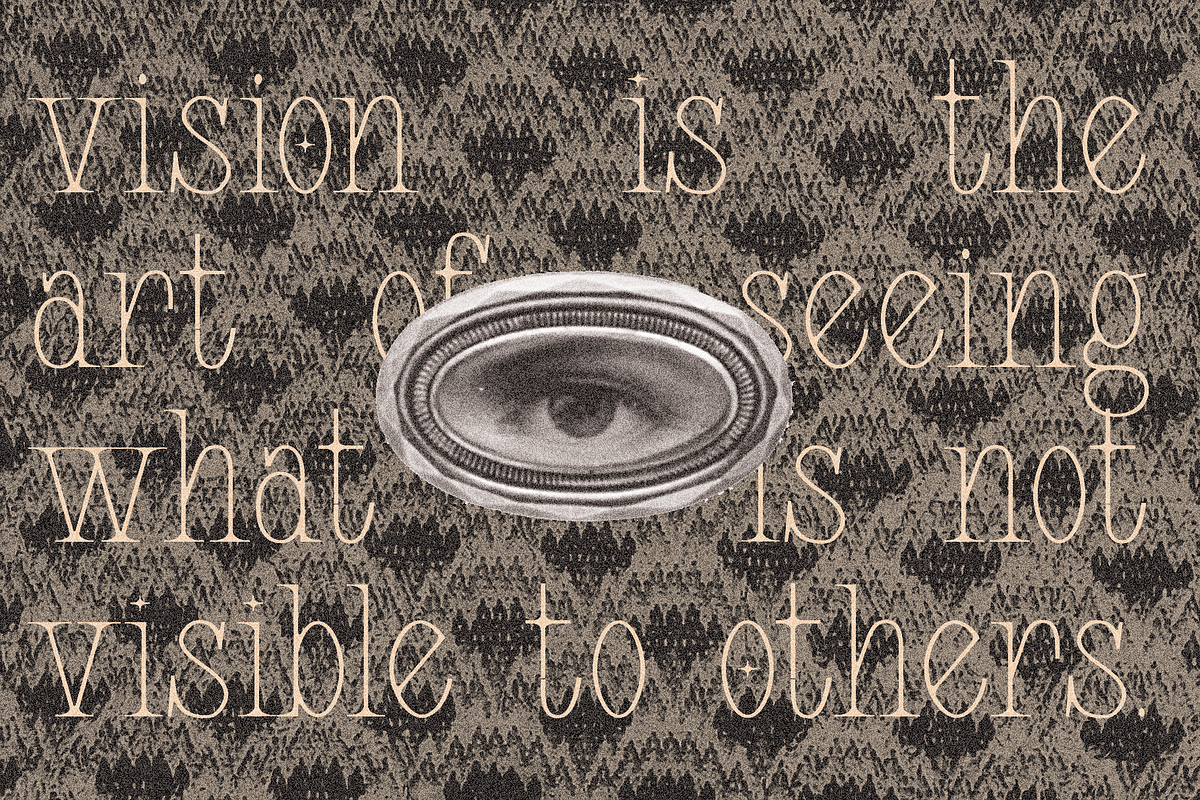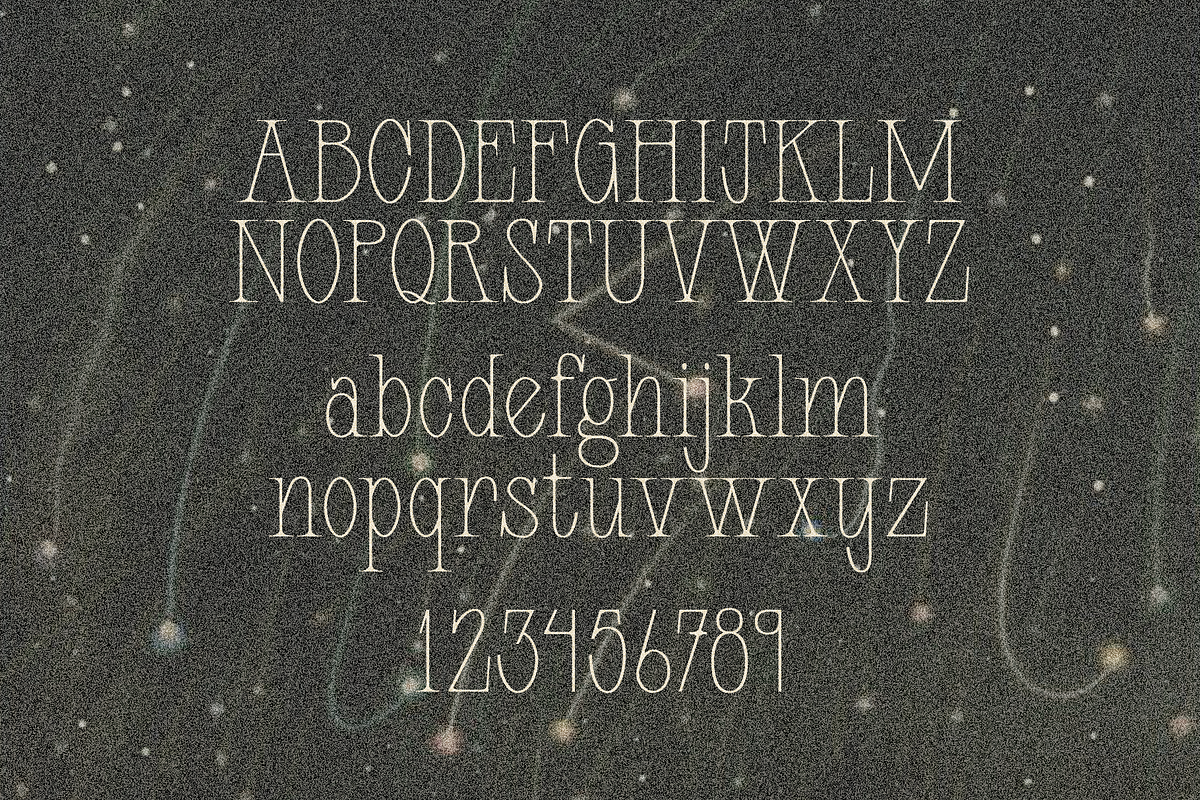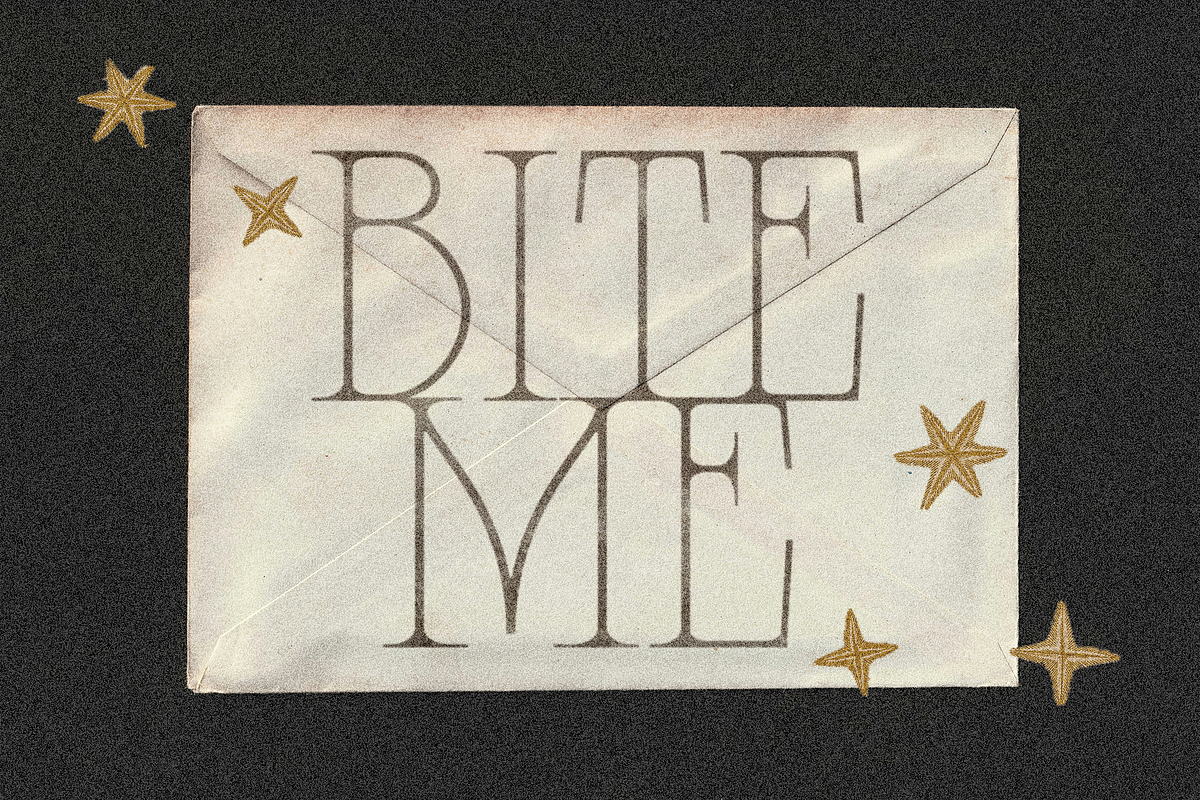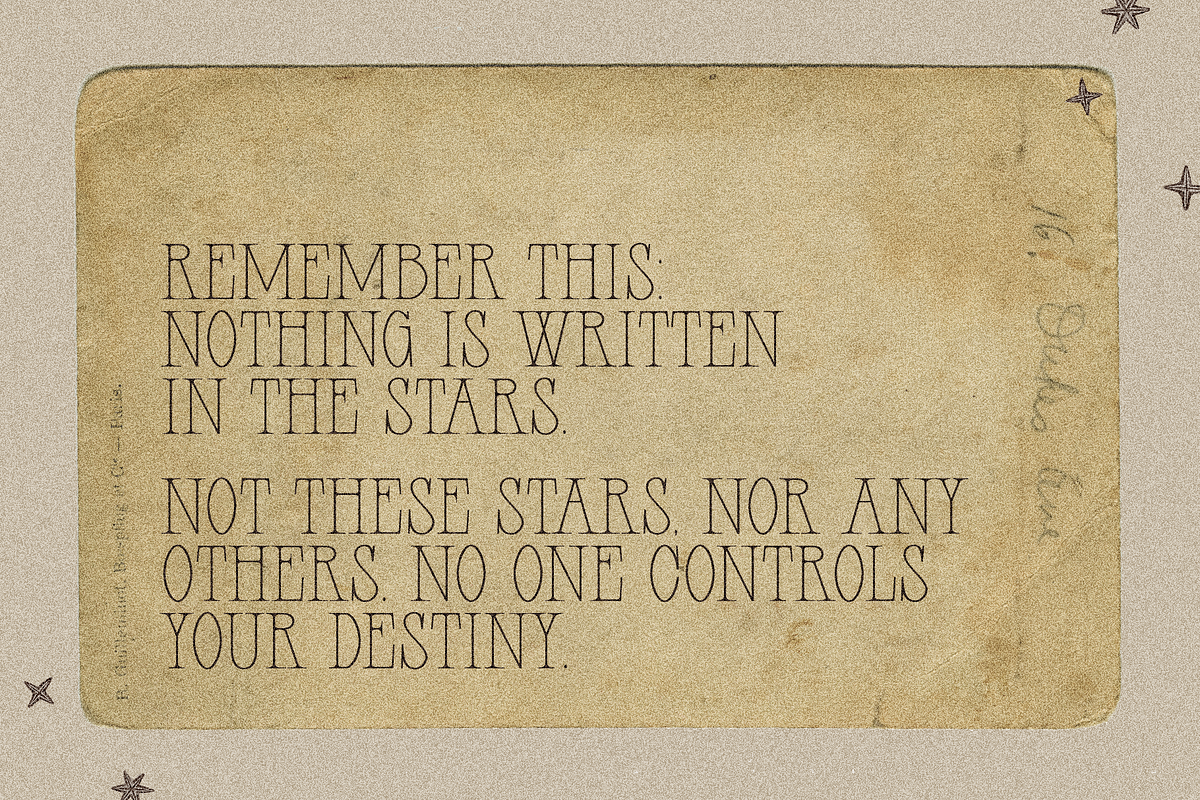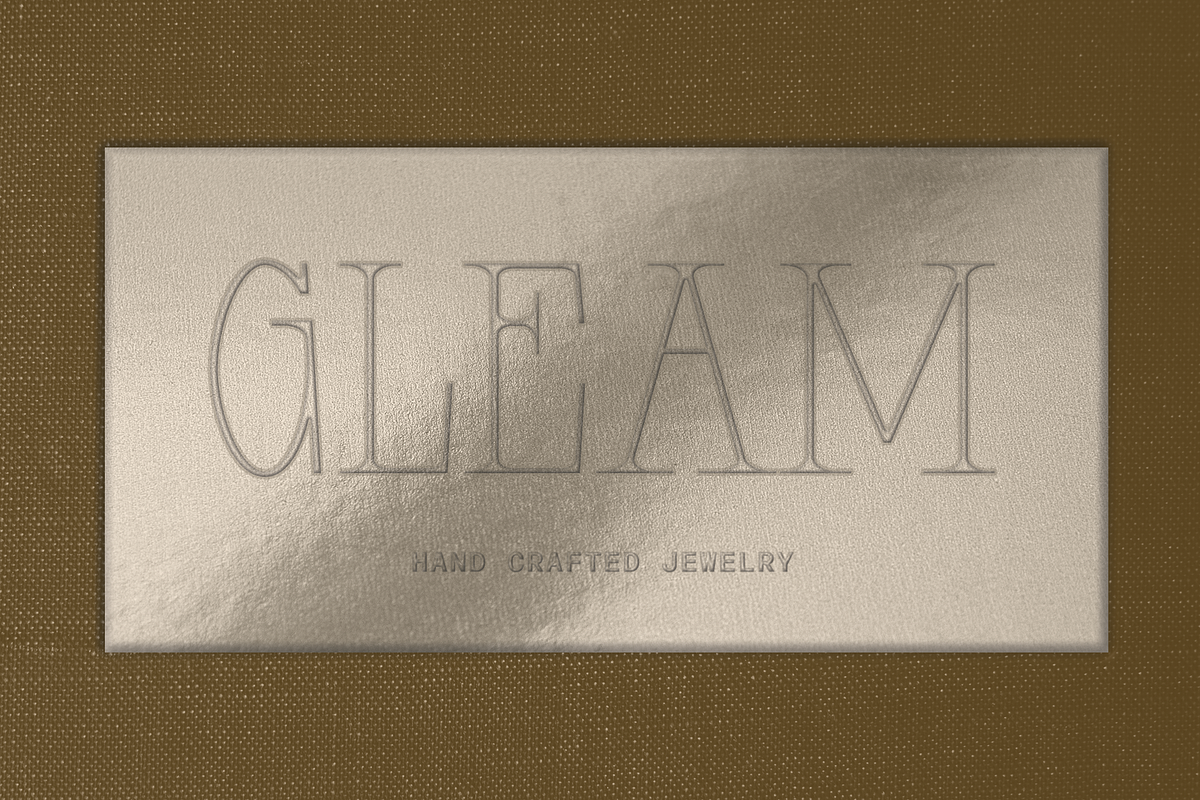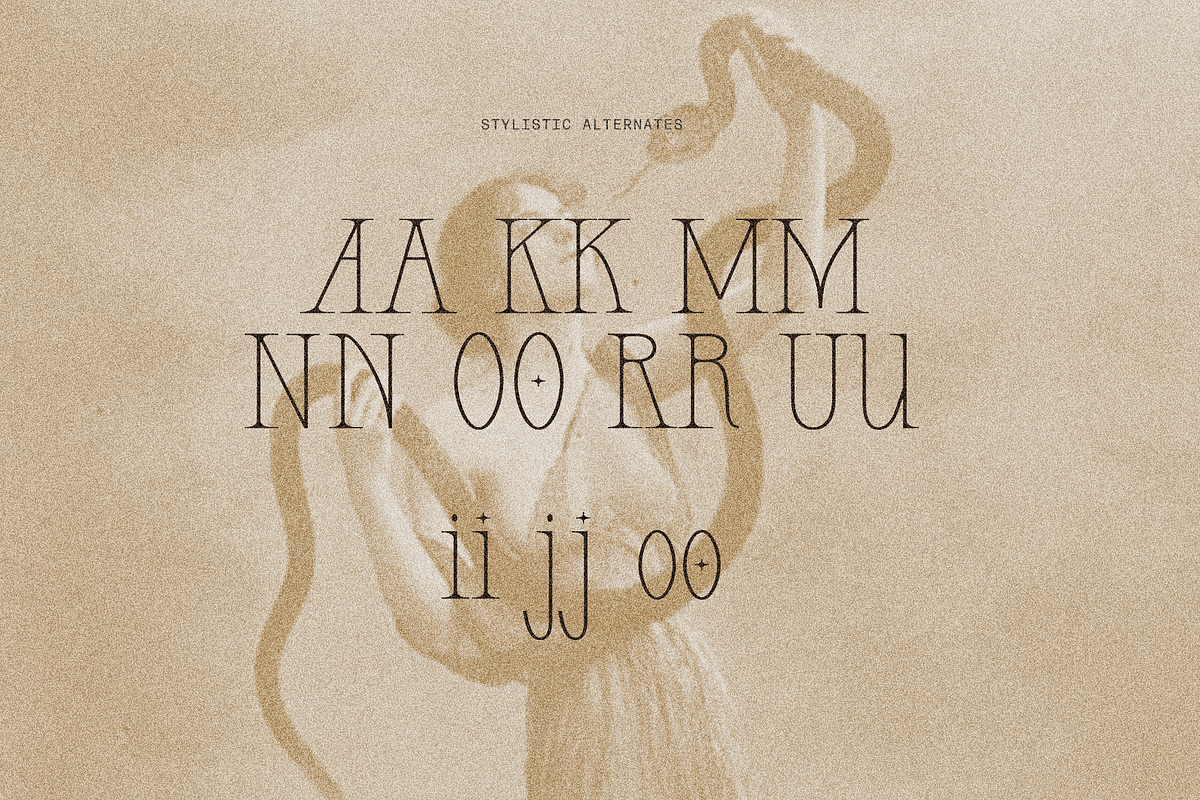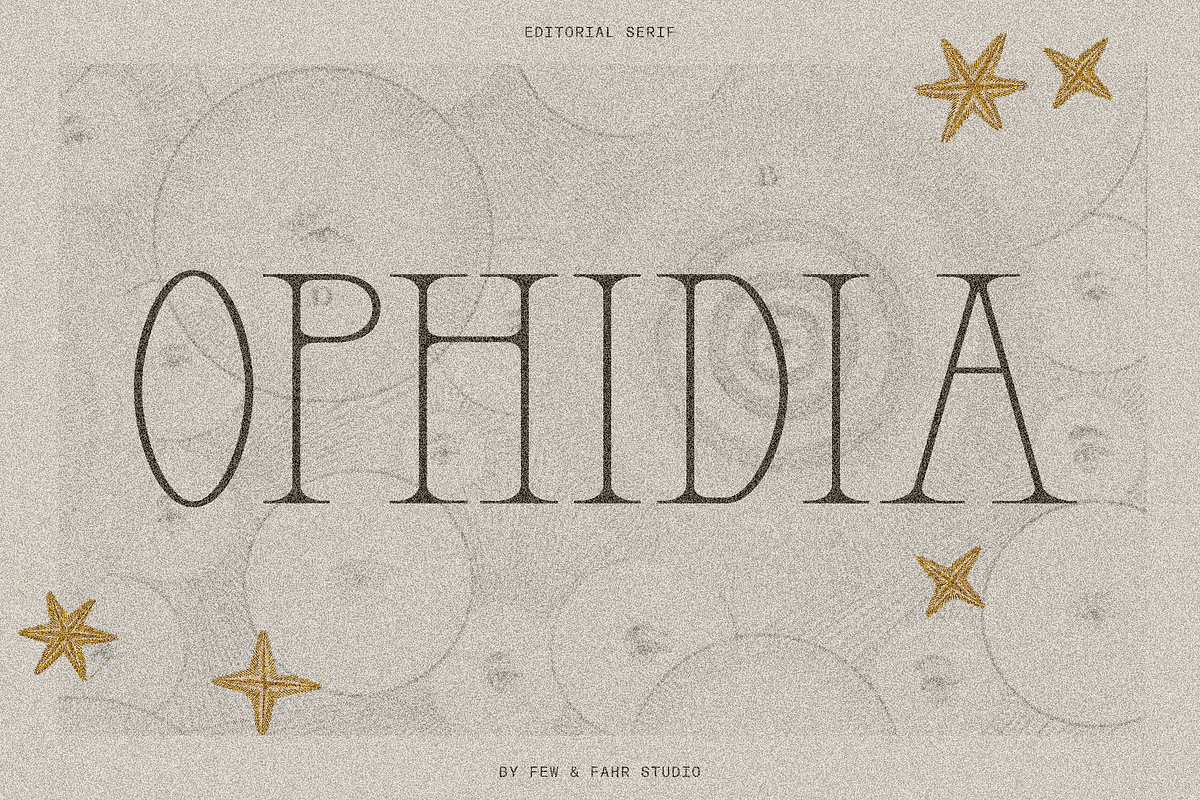
OPHIDIA Typeface
Ophidia is a serif typeface that initially presents as editorial in style, but with a closer look, you'll find subtle quirks that set her apart. Subtle contrast, exaggerated serifs, odd proportions - all contribute to Ophidia's spunky, unbothered attitude.